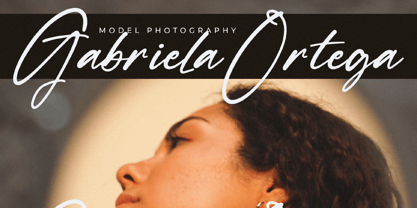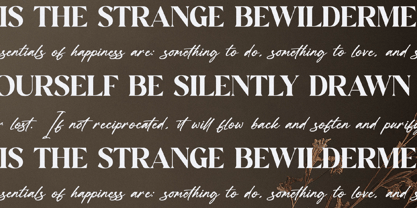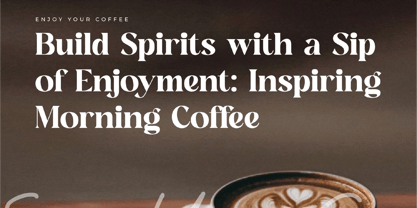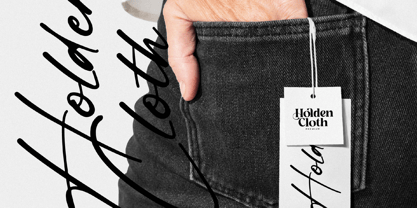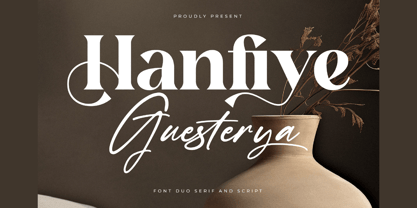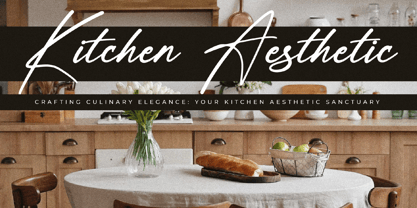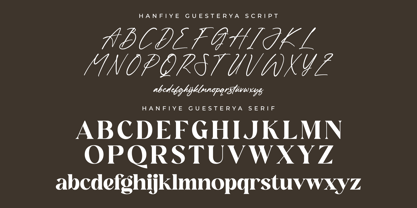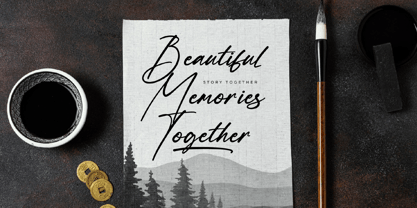
Hanfiye Guesterya
The Hanfiye Guesterya Font Family was designed by Heru Utama Putra and published by Letterena Studios. Hanfiye Guesterya contains 2 styles and family package options. More about this family
Proudly present Hanfiye Guesterya Font Duo.
A serif and script typeface that has its own unique style & modern look.
This typeface is perfect for an elegant & luxury logo, book or movie title design, fashion brand, magazine, clothes, lettering, quotes, and so much more.